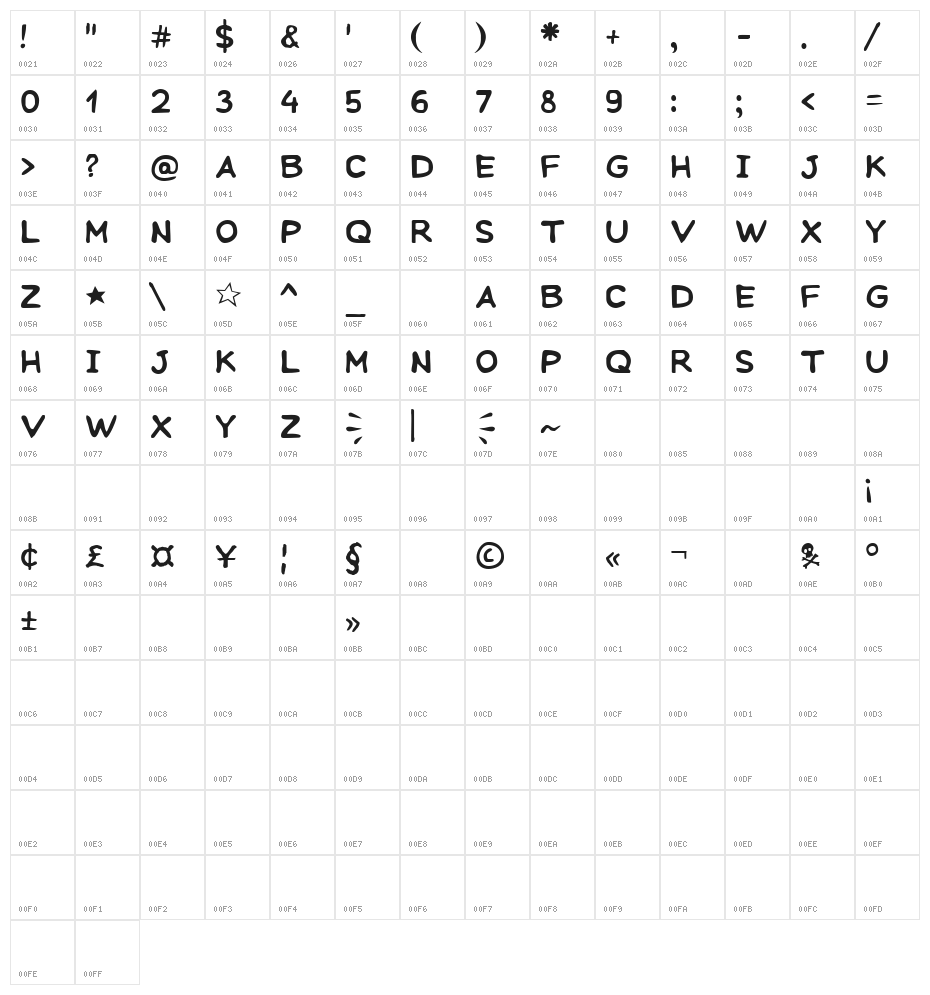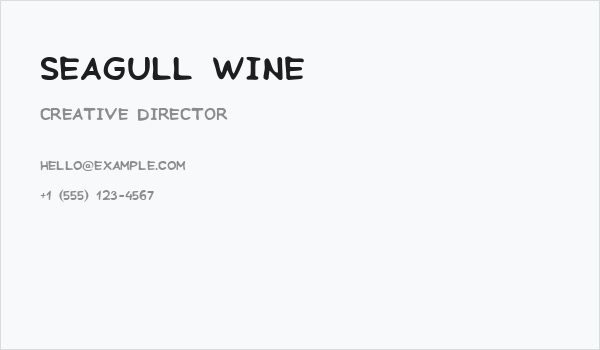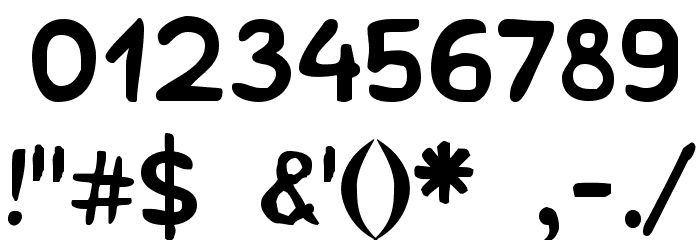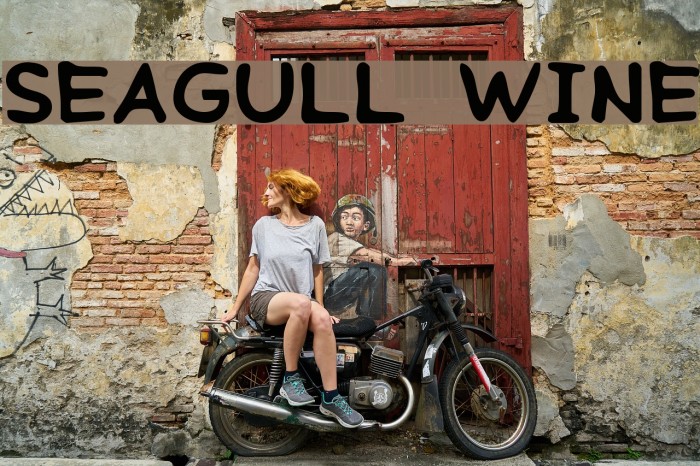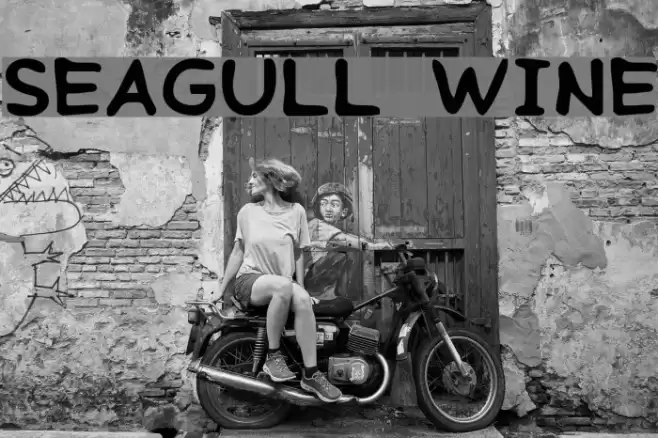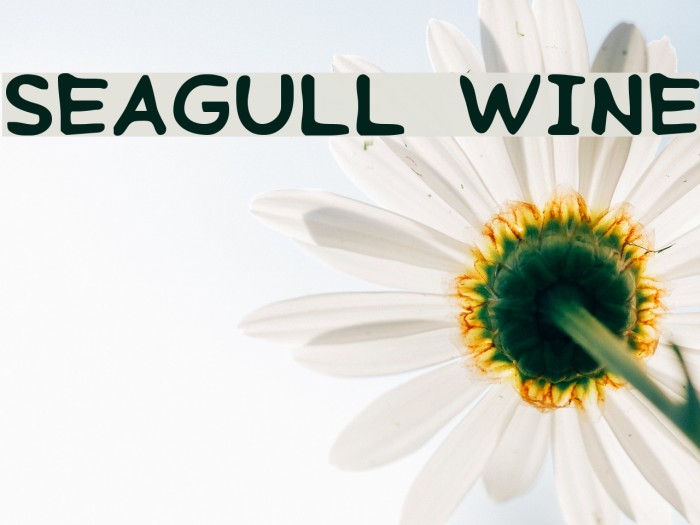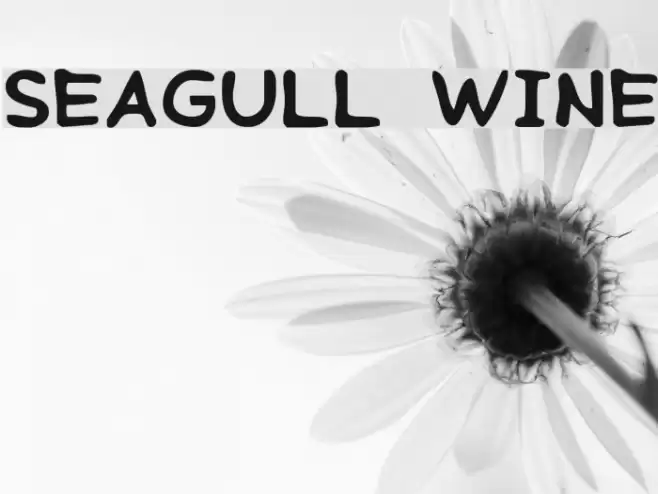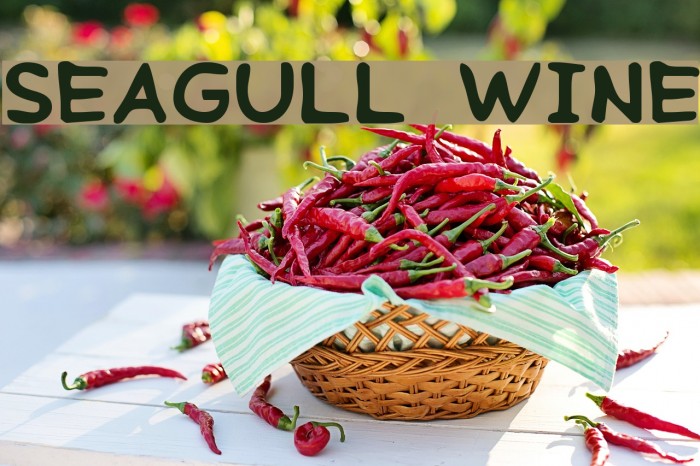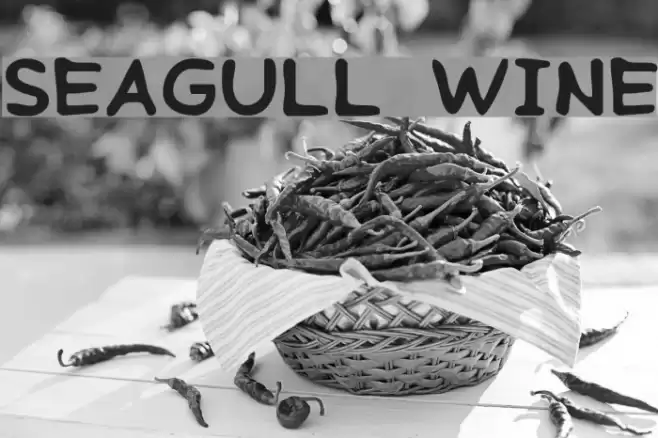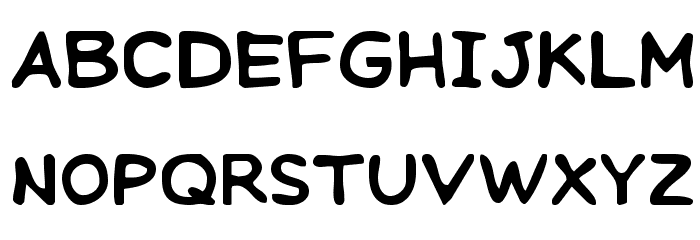
Seagull Wine Font
Seagull Wine Description
This font features a playful and informal style with rounded edges and a hand-drawn appearance. The characters are bold and slightly irregular, giving a whimsical and approachable feel. The uppercase and lowercase letters maintain a consistent style, with a slight tilt that adds to the casual aesthetic. The numbers and special characters follow the same design principles, ensuring uniformity across all glyphs. This font is perfect for projects that require a friendly and inviting look, such as children's books, casual branding, or creative posters.
| Overall Style | Playful |
| Proposed Projects | Ideal for children's books, casual branding, creative posters, and playful invitations. |